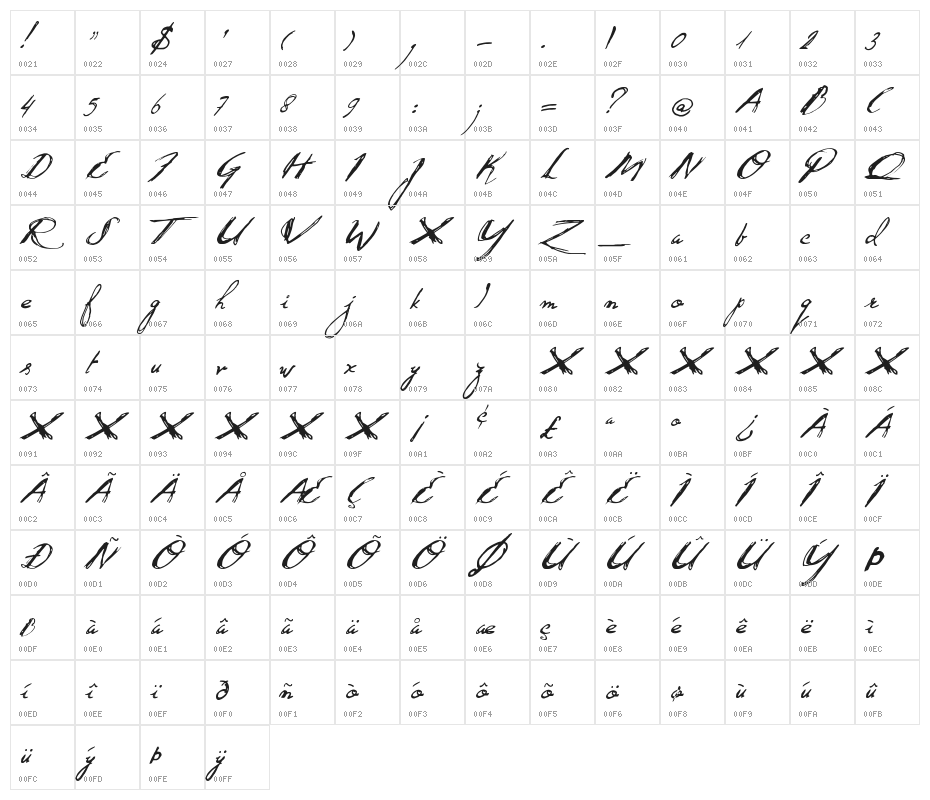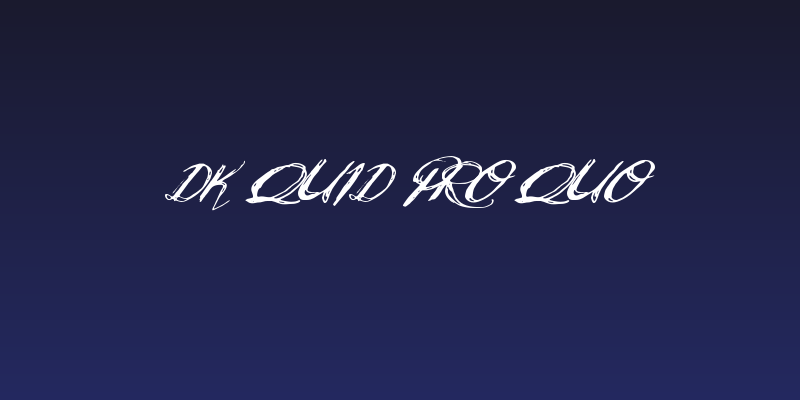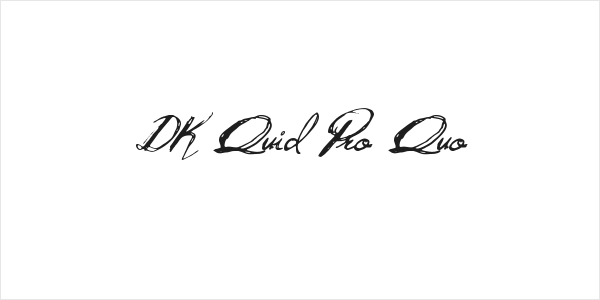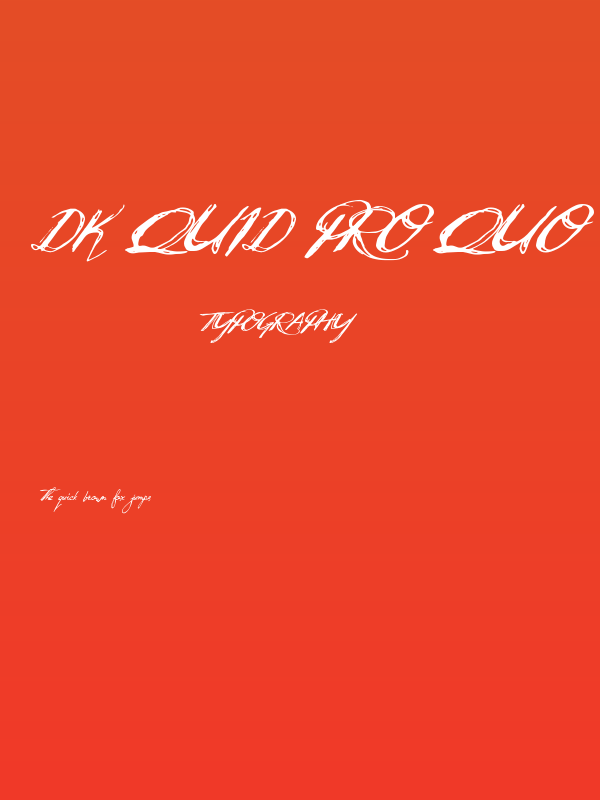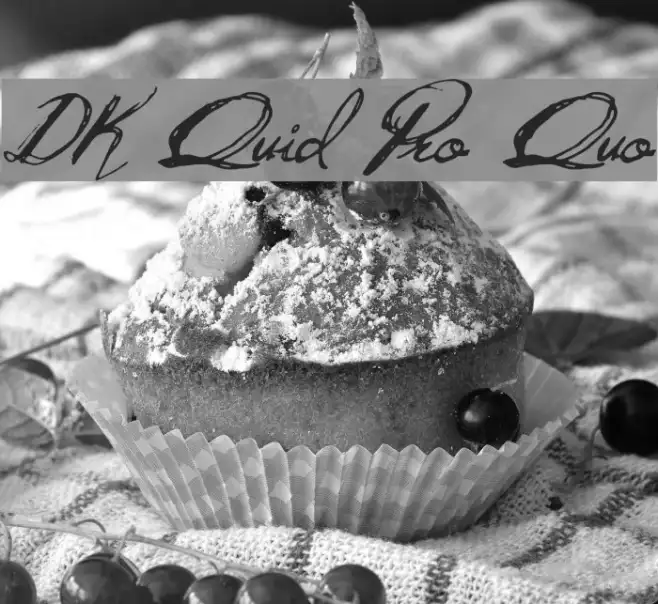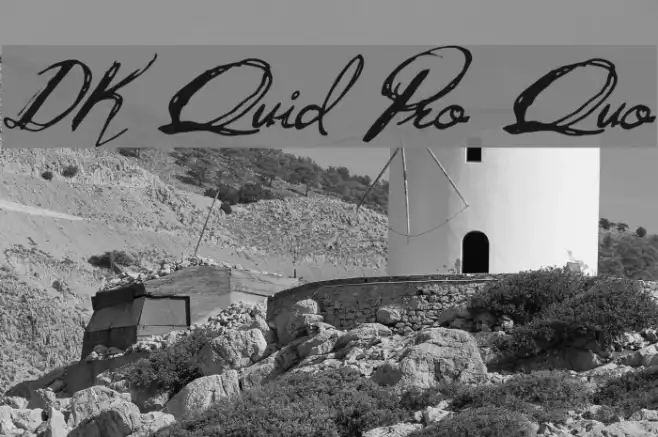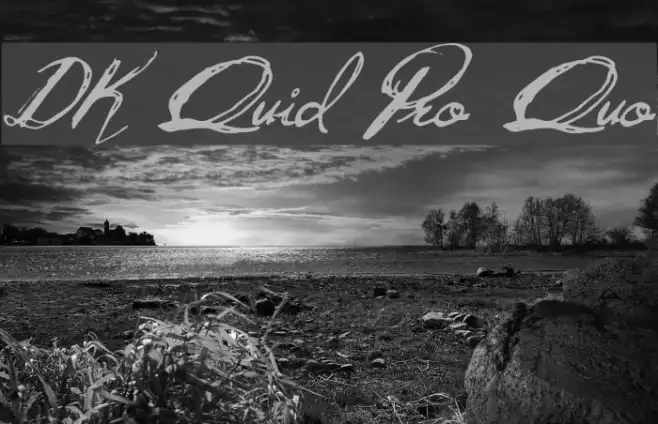
DK Quid Pro Quo Font
DK Quid Pro Quo Description
This font exudes a dynamic and expressive style, characterized by its fluid, cursive strokes that mimic the natural flow of handwriting. The letters are interconnected, creating a sense of continuity and movement. The uppercase letters are bold and slightly slanted, while the lowercase letters maintain a consistent rhythm with elegant loops and curves. The numerals are distinct yet harmonize with the overall script style. Special characters are creatively integrated, adding to the font's artistic flair. This font is ideal for projects that require a personal, artistic touch, such as invitations, greeting cards, or branding materials that aim to convey elegance and creativity.